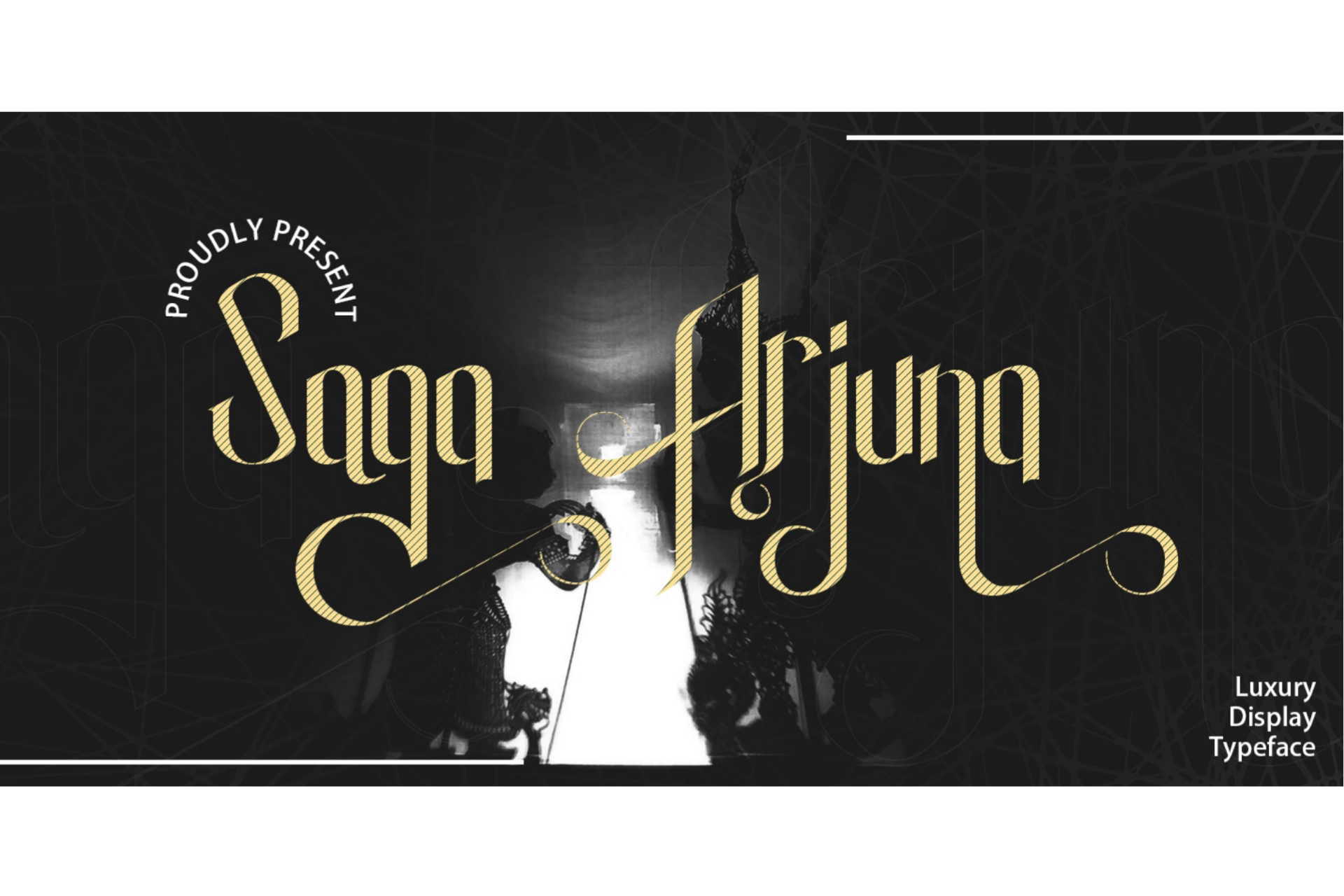
Saga Arjuna - Display Font
Saga Arjuna is a modern, elegant and luxurious font with custom alternatives and multilingual support. With a strong desire and grace, it can be used as a logo and title. Great for books, product packaging, advertisements, brands and more.